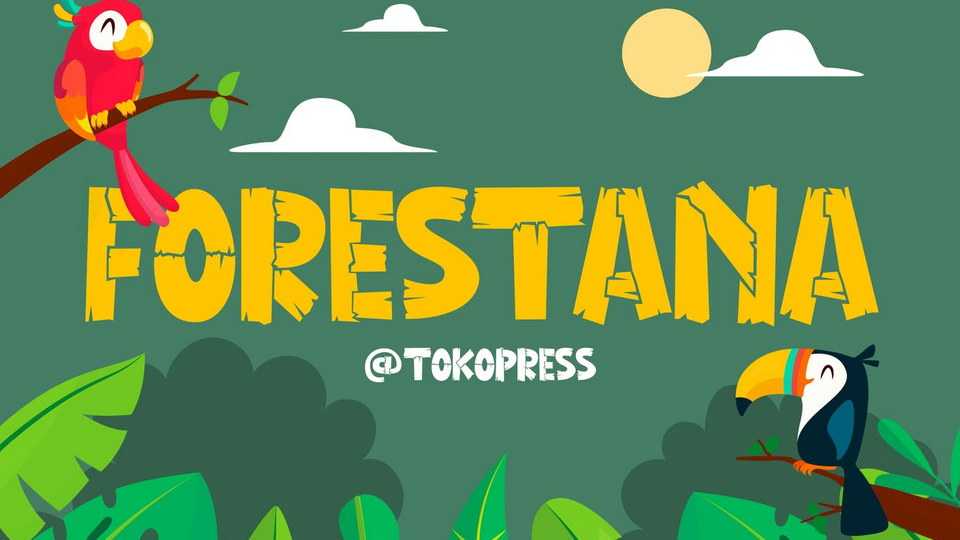
Download Forestana font, a children typeface. Love the jungle, keep the tree safe. This Forestana brings a wooden plank look in a funny and kid-friendly way.